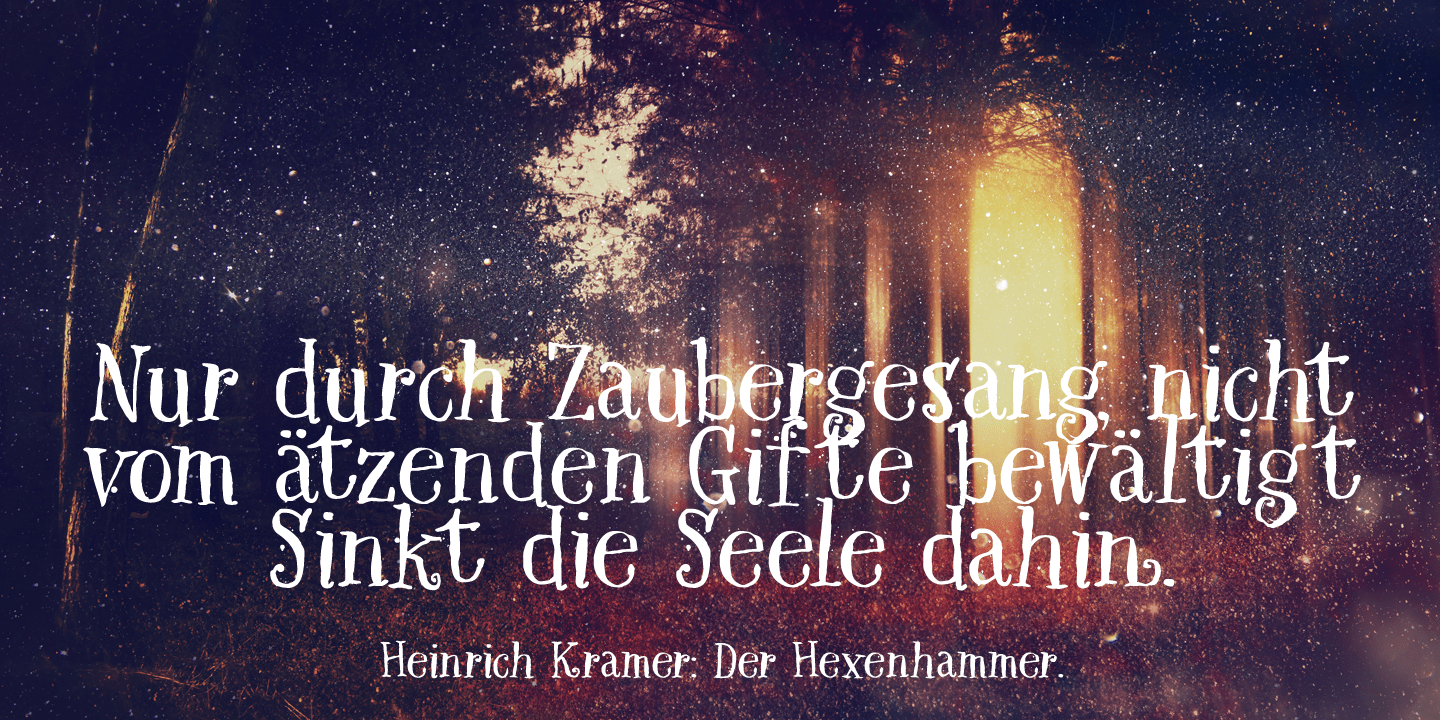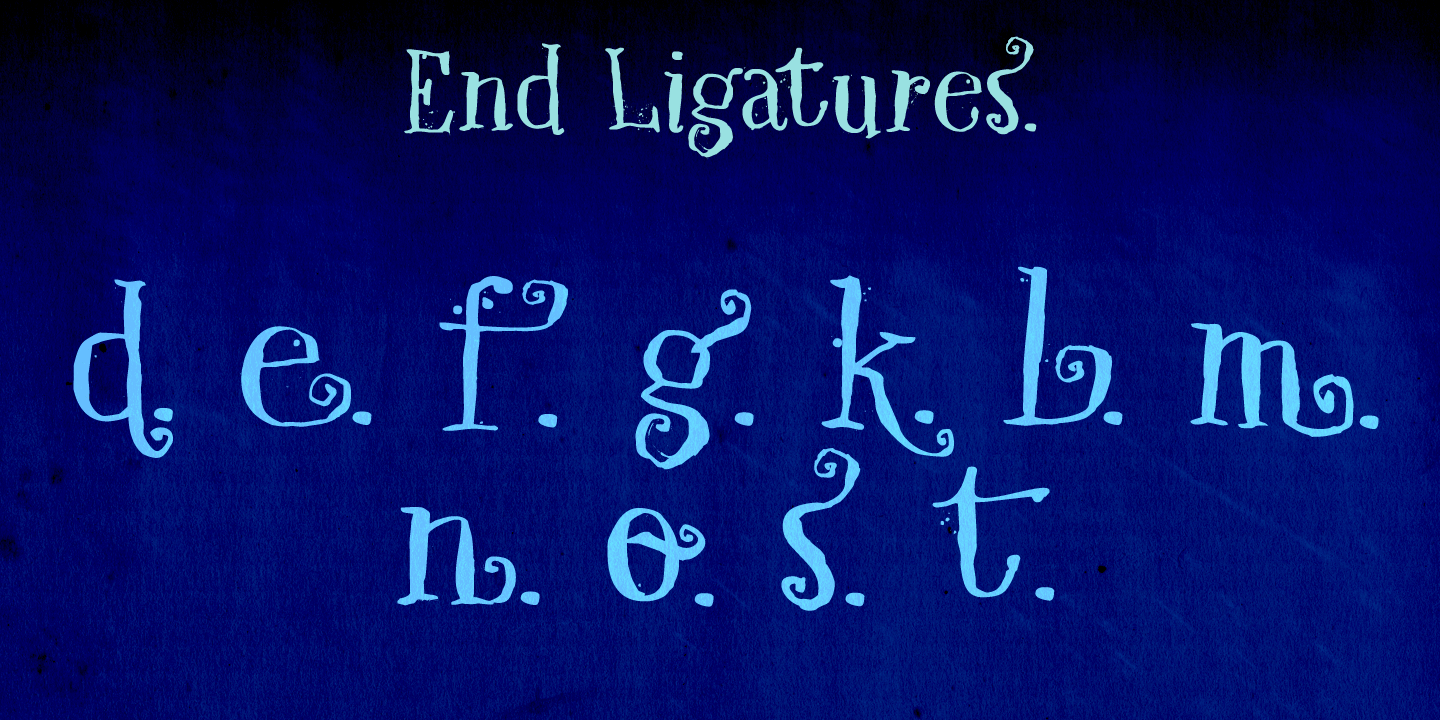
About Hexenhammer
The ?Hammer of Witches?, ?Malleus Maleficarum? or ?Hexenhammer? in German is the best know and most important treatise on witchcraft. It was composed by Heinrich Kramer in 1487. I thought it was a rather apt name for my latest fairytale font! Hexenhammer…